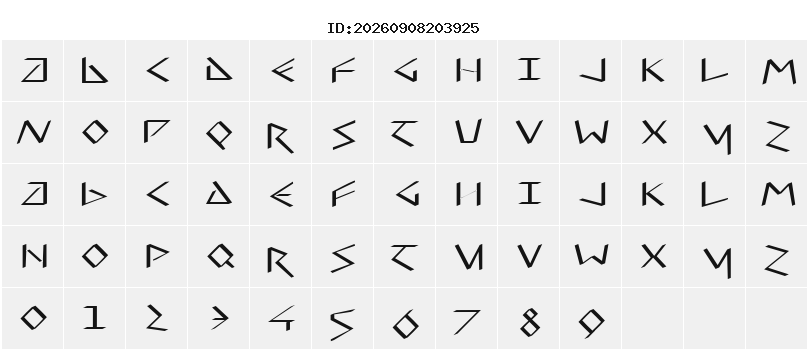
VirtualUncialQuill Preview
About VirtualUncialQuill.ttf
VirtualUncialQuill.ttf is a modern, elegant sans-serif font designed for ultimate readability and visual harmony. Perfect for branding, headlines, web design, and print materials.